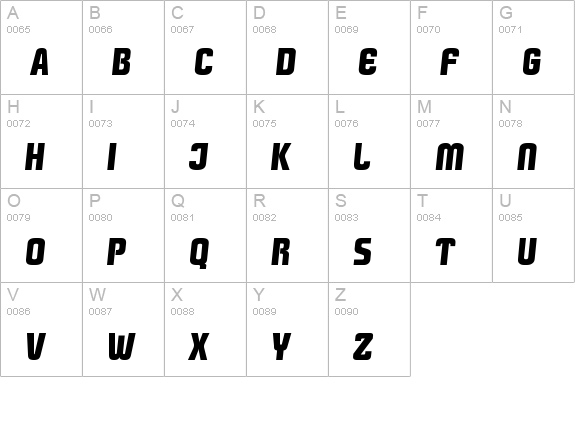
PasadenaEF-BoldItalic Font Details
PasadenaEF-BoldItalic is a stunning and versatile font that exudes elegance and sophistication. Its bold and italicized design adds a touch of flair and personality to any project. The strong and confident strokes of this font make it perfect for headlines, titles, and branding materials. With its unique and eye-catching aesthetic, PasadenaEF-BoldItalic is sure to captivate and engage your audience. Whether you are designing a logo, creating a poster, or working on a website, this font will elevate your work to the next level. One of the best features of PasadenaEF-BoldItalic is that it is completely free. You can easily download this font at FontsMarket.com, a trusted platform for high-quality fonts. This means that you have the freedom to use PasadenaEF-BoldItalic in any personal or commercial project without any restrictions. Don't miss out on the opportunity to enhance your designs with the elegance and beauty of PasadenaEF-BoldItalic. Download it today from FontsMarket.com and let your creativity soar.